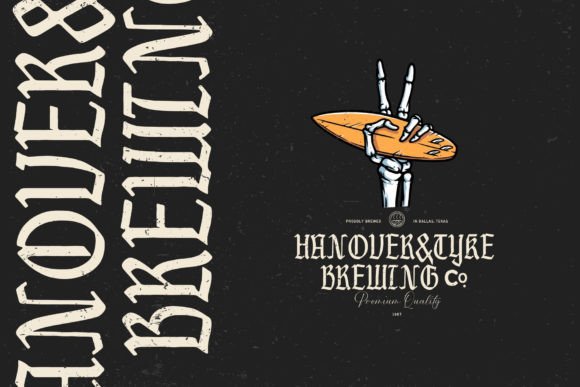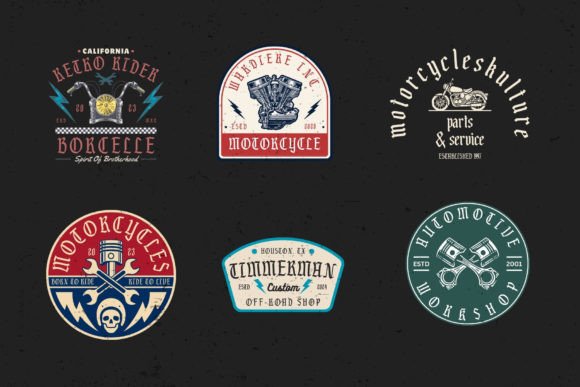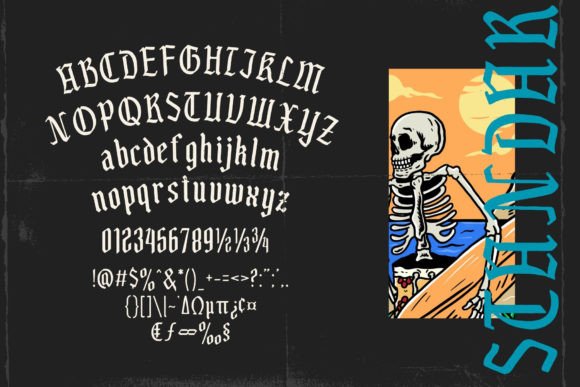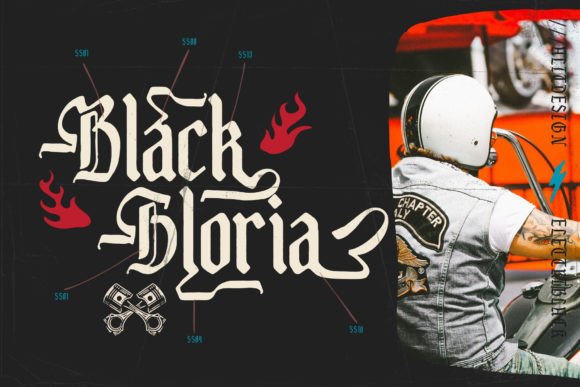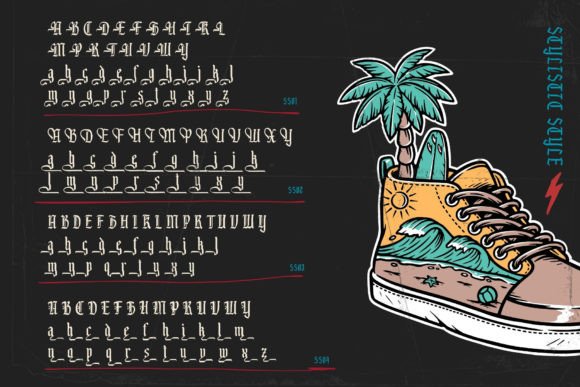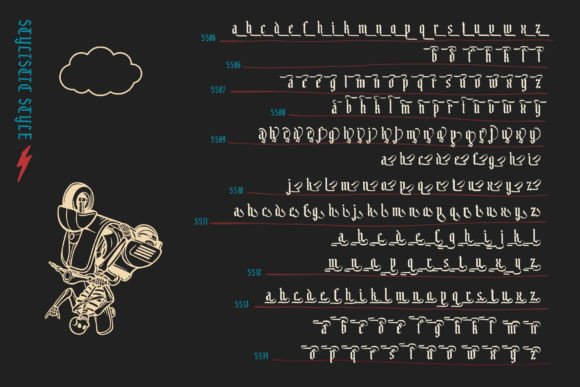
Introducing Electro Black Vintage Blackletter: A Timeless Fusion of Elegance and Edginess
Are you a designer on the hunt for a font that seamlessly blends vintage charm with a modern twist? Look no further than Electro Black Vintage Blackletter. This captivating typeface combines the timeless beauty of classic typography with a rugged, edgy finish, making it the perfect addition to your design arsenal.
The Essence of Electro Black Vintage Blackletter
Electro Black Vintage Blackletter is more than just a font – it’s an electrifying blend of vintage elegance and rugged blackletter aesthetics. With its distinctive old-style flair, this font evokes the charm of medieval script, but with a rough, edgy finish that sets it apart from traditional blackletter typefaces.
Characterized by its intricate details and bold strokes, Electro Black Vintage Blackletter is perfect for designers looking to add a touch of sophistication and edge to their projects. Whether you’re creating posters, logos, packaging, or apparel, this font is sure to make a statement.
A Wealth of Creative Possibilities: 900 Meticulously Crafted Characters
One of the standout features of Electro Black Vintage Blackletter is its extensive character set. With 900 meticulously crafted characters, this font offers a wealth of creative possibilities for designers. From ligatures to stylish swashes, the font’s rich feature set allows for a dynamic and seamless design experience.
Whether you’re looking to create a bold, eye-catching headline or a elegant, refined body text, Electro Black Vintage Blackletter has got you covered. The font’s versatility makes it perfect for a wide range of design applications, from branding and advertising to packaging and apparel.
Bringing History to Life with a Modern Twist
Electro Black Vintage Blackletter is more than just a font – it’s a journey through history. With its roots in medieval script, this font brings a touch of classic elegance to modern design. But it’s not just about nostalgia – it’s about reinterpreting the past for the present.
The font’s rough, edgy finish gives it a modern, industrial feel that’s perfect for designers looking to add a touch of grit and sophistication to their projects. Whether you’re creating a logo for a startup or a brand identity for a established company, Electro Black Vintage Blackletter is the perfect choice.
Electro Black Vintage Blackletter is a must-have font for any designer or crafter looking to elevate their typography. With its unique blend of vintage charm and modern edge, this font is perfect for a wide range of design applications.
Whether you’re a seasoned designer or just starting out, Electro Black Vintage Blackletter is a valuable addition to your design toolkit. The font’s ease of use and versatility make it perfect for designers of all skill levels.
Get Ready to Transform Your Typography
With Electro Black Vintage Blackletter, you can transform your typography and take your designs to the next level. This font is not just a tool – it’s a creative partner that will help you bring your ideas to life.
- 900 meticulously crafted characters
- Rich set of ligatures and stylish swashes
- Distinctive old-style flair with a rough, edgy finish
- Perfect for posters, logos, packaging, and apparel
In conclusion, Electro Black Vintage Blackletter is a game-changing font that will revolutionize your typography. With its unique blend of vintage charm and modern edge, this font is perfect for designers and crafters looking to add a touch of sophistication and elegance to their projects. So don’t wait – download Electro Black Vintage Blackletter today and start creating!